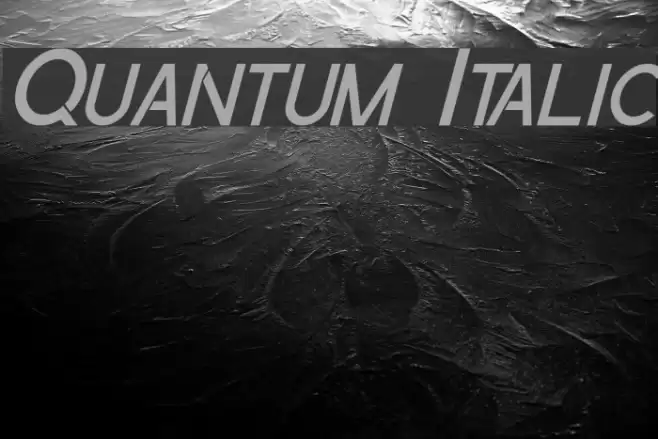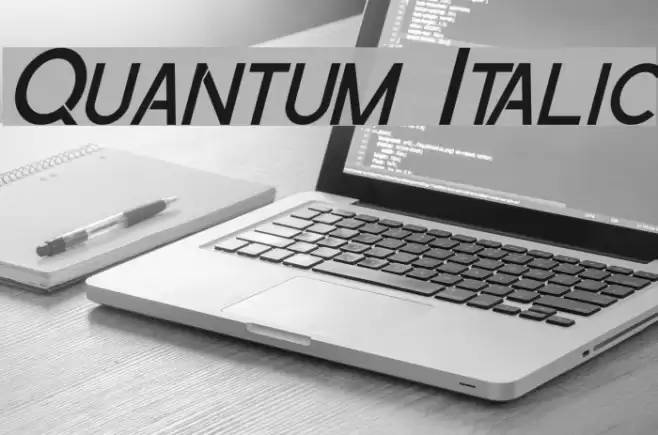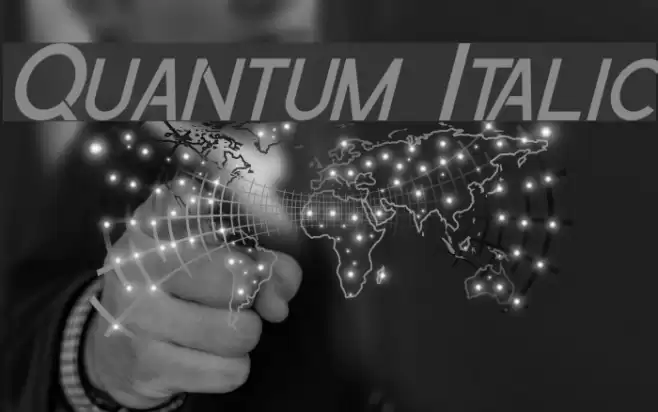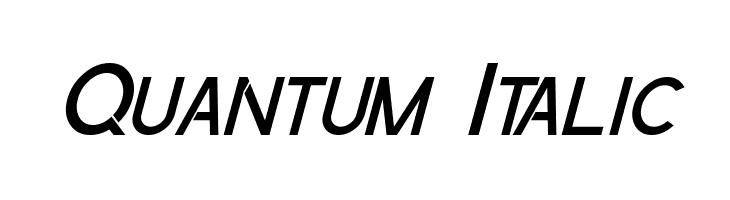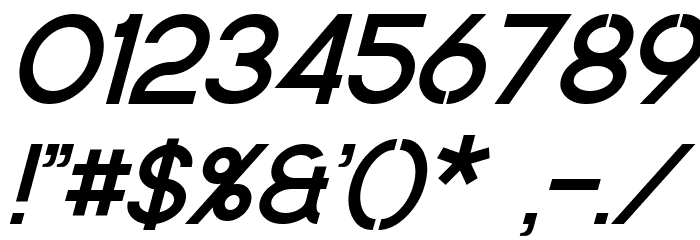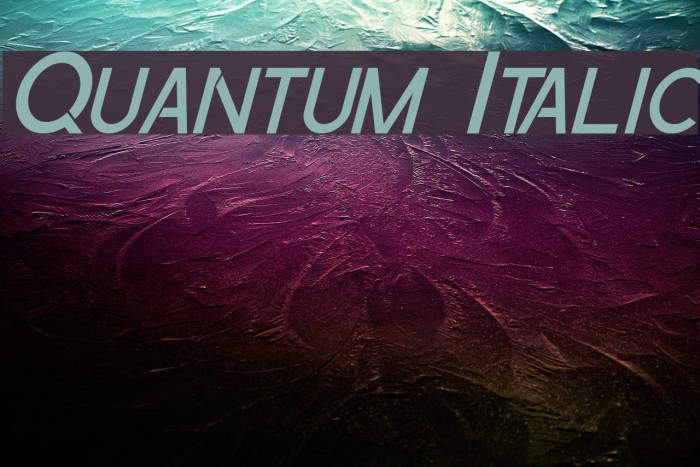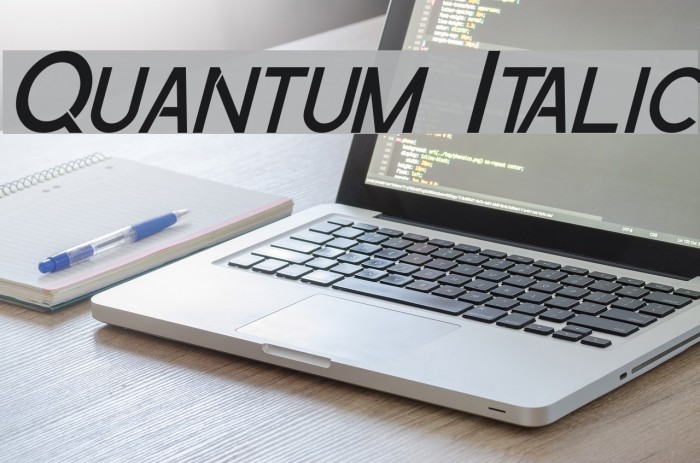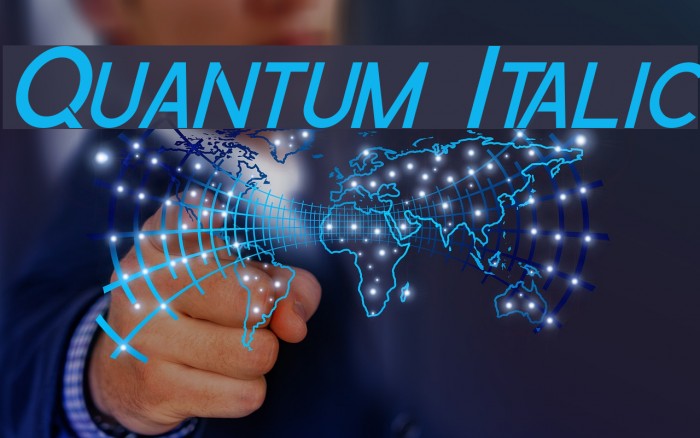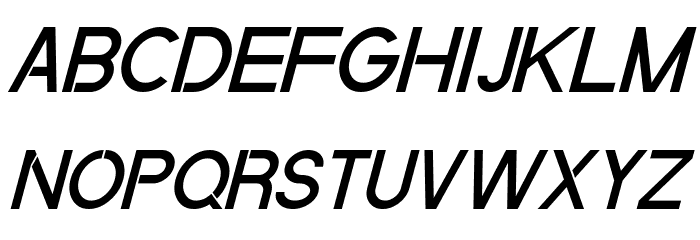
Quantum Italic
This font features a sleek, italicized design with a modern aesthetic. The characters are slightly slanted, giving a dynamic and forward-moving appearance. The strokes are consistent in thickness, providing a uniform look across all letters and numbers. The uppercase and lowercase letters maintain a cohesive style, with clean lines and sharp angles. The numerals are bold and easily readable, while the special characters are distinct and well-defined. This font's overall style is both professional and contemporary, making it suitable for a variety of applications.
A sleek, italicized font with a modern and dynamic style.